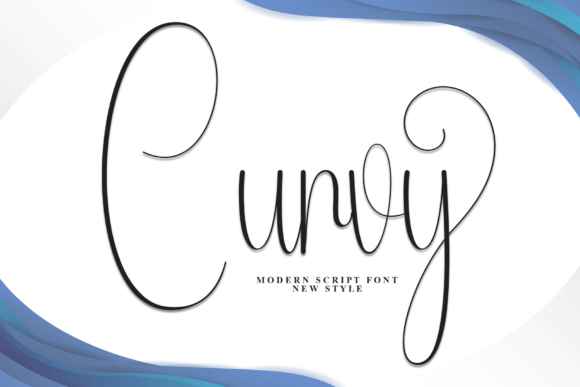
The Perfect Script: Discovering the Elegance of Curvy Font
Have you ever found yourself scribbling in a journal or writing a heartfelt letter to a loved one, only to realize that the flow of your handwriting has captured the essence of the moment? That’s the magic of handwritten script fonts – and one of the most captivating examples is the Curvy Font. This stylish typeface is designed to evoke the same feeling of elegance and fluidity that we experience when we write from the heart.
The Curvy Font is a versatile and sophisticated script font that can be used for a variety of creative projects, from branding and invitations to personal artwork and creative writing. Its smooth, flowing strokes create a natural and refined feel that is sure to add a personal touch to any design. For designers, the Curvy Font is a valuable addition to their toolkit, offering a unique way to express themselves and connect with their audience on a deeper level.
Curvy Font Key Features
- Font Family: Curvy Font comes in multiple font families, including Regular, Bold, Italic, and Bold Italic, offering a range of styles to suit different design needs.
- Unique Characteristics: Curvy Font’s distinctive rounded shapes and smooth curves give it a friendly, approachable feel, making it perfect for designs that require a touch of warmth and personality.
Curvy Font Review
I recently had the chance to work with the Curvy Font, and I must say, it’s an interesting addition to any design project. ✨ One of its strongest points is its unique, playful feel, which can add a touch of whimsy to digital and print materials. The font’s curves can be used to create visually appealing headings and titles that stand out from the rest.
Additionally, the Curvy Font is highly customizable, allowing designers to adjust the font’s weight, spacing, and color to fit their specific needs. This level of flexibility is a major plus, making it a great choice for projects that require a high degree of personalization.
While the Curvy Font has its strengths, there are some limitations to consider. ⚠️ For one, the font may not be the best choice for projects that require a more serious or professional tone. The Curvy Font’s playful feel can sometimes come across as unprofessional or immature.
Another limitation is that the font may not be as legible at smaller font sizes. While this can be mitigated with proper spacing and layout, it’s still something to keep in mind when using the font in certain contexts.
In conclusion, the Curvy Font is a fun and versatile addition to any design project. While it may have some limitations, its unique feel and high level of customization make it a great choice for designers looking to add some personality to their work.
- Unique, playful feel
- Great for digital and print materials
- Not ideal for serious or professional projects
- May not be as legible at smaller font sizes
Curvy Font is perfect for adding a touch of elegance and sophistication to your designs.
Use it for titles, headings, and other emphasis text to make your content stand out.